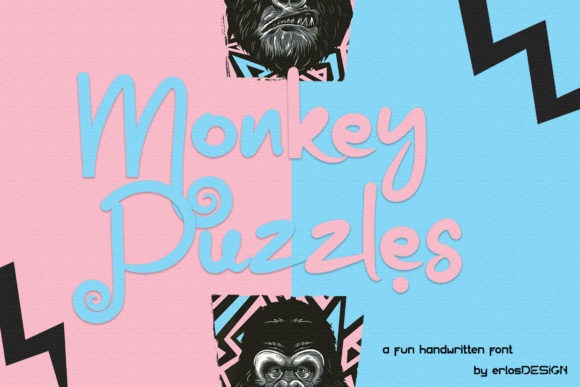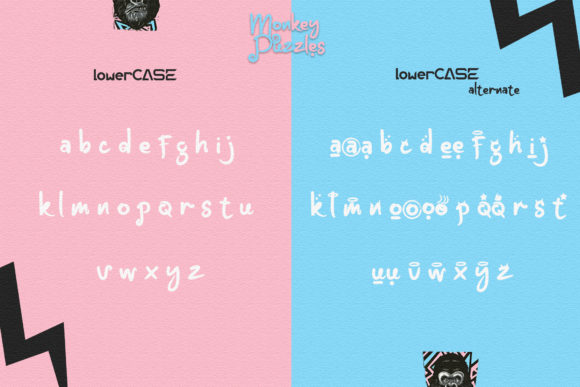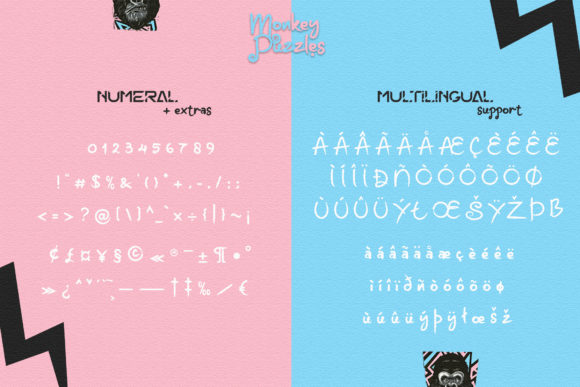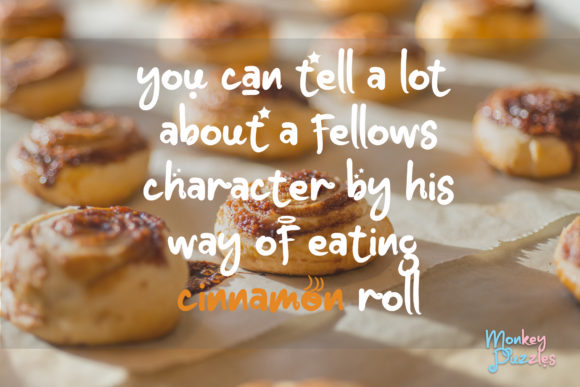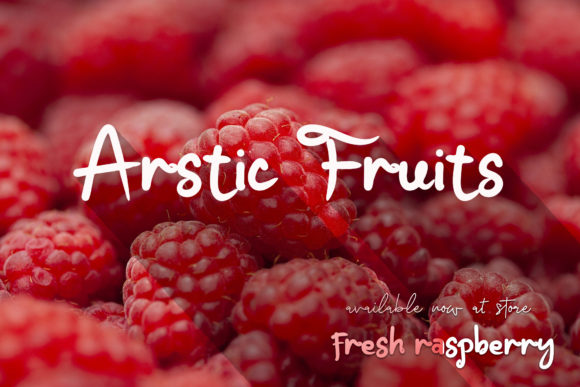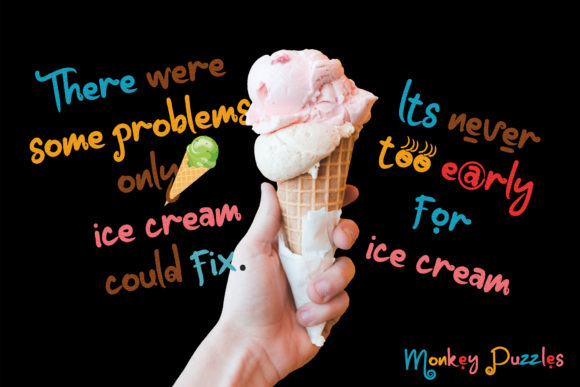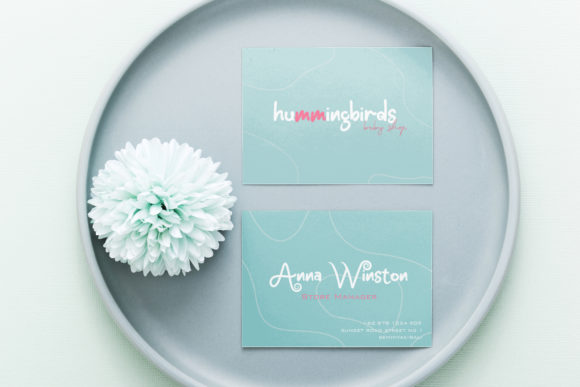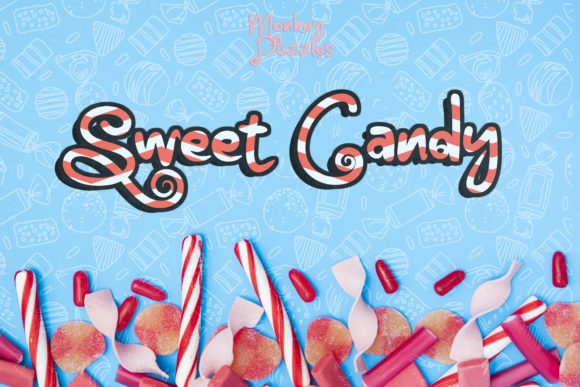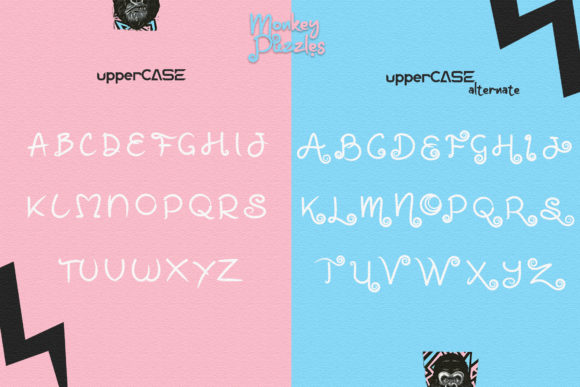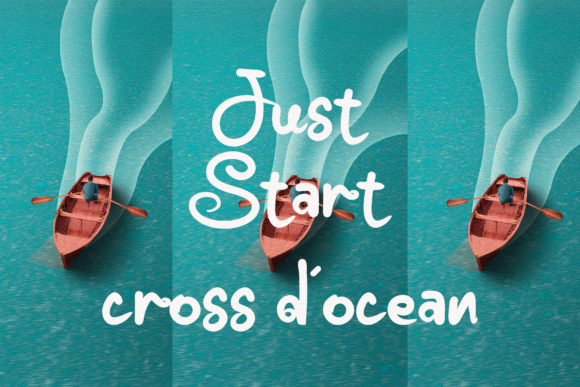
Monkey Puzzles Font
About Monkey Puzzles Font
Monkey Puzzles is a sweet and friendly handwritten font. Its natural and unique style makes it incredibly fitting to a large pool of designs. The only limit is your imagination!